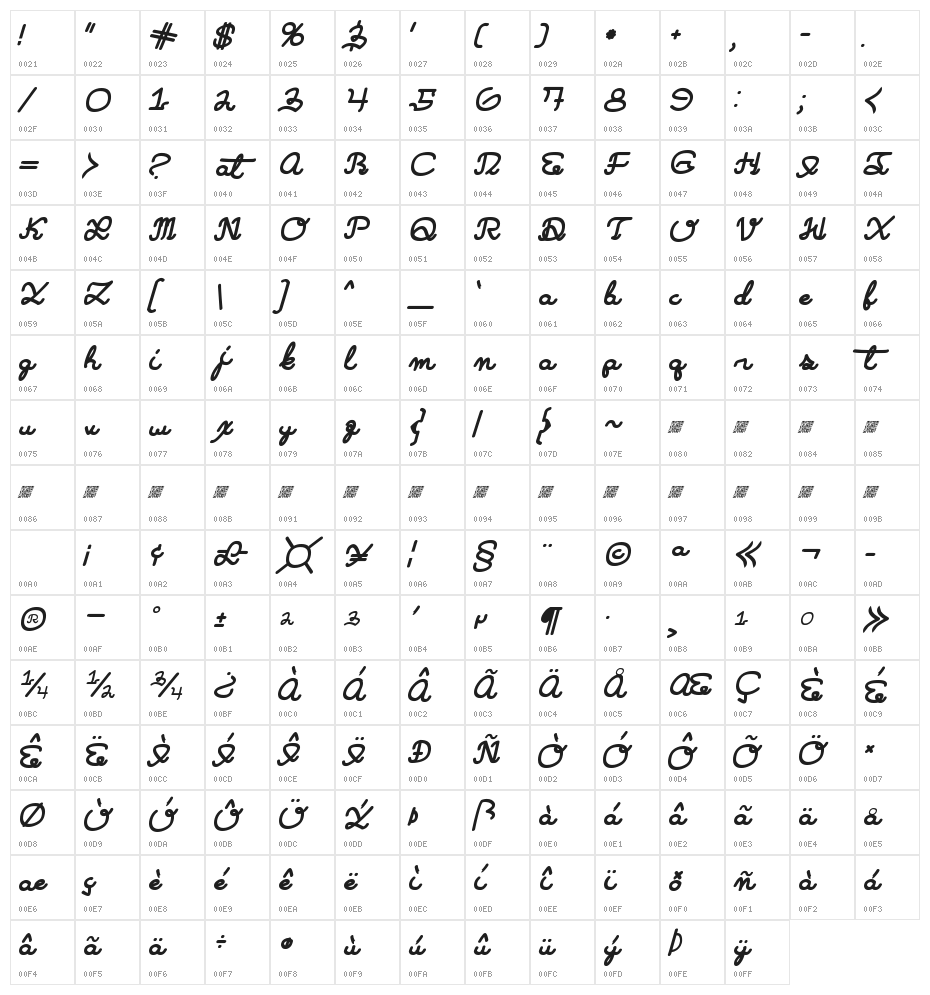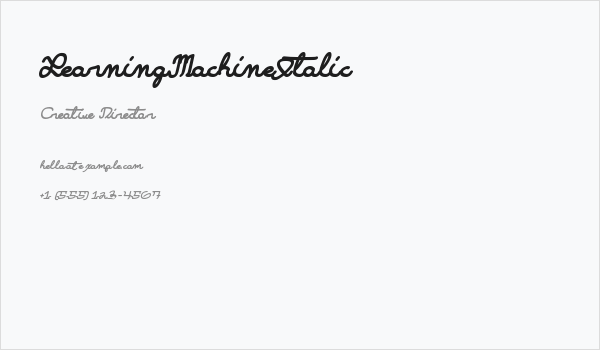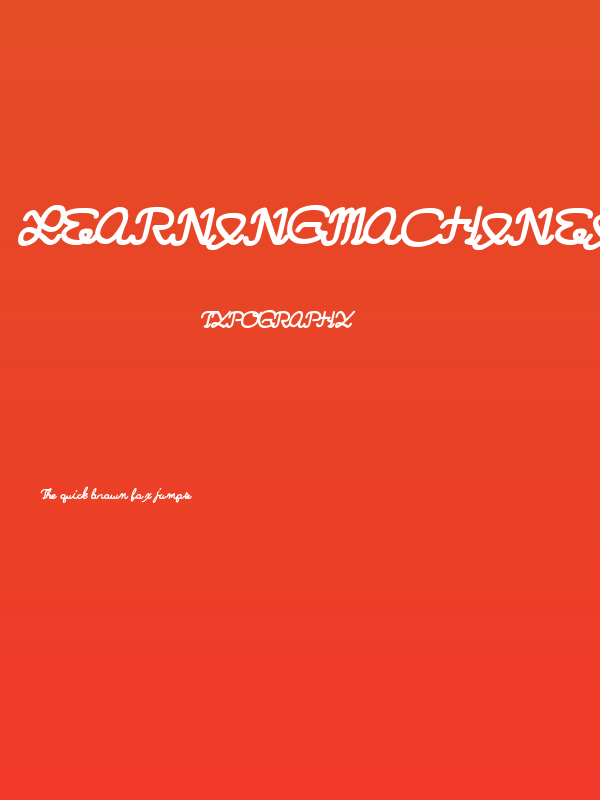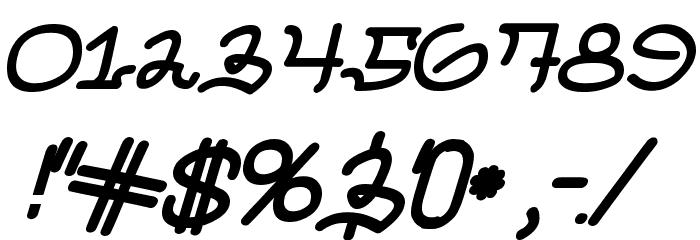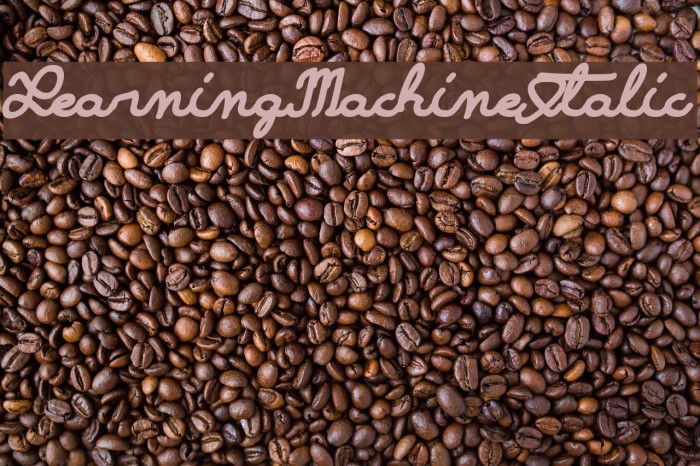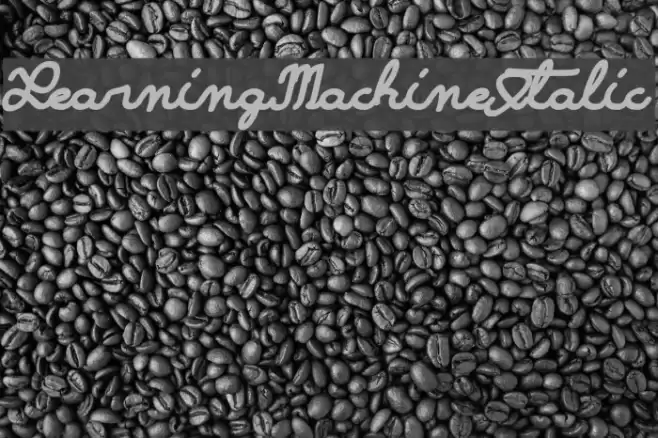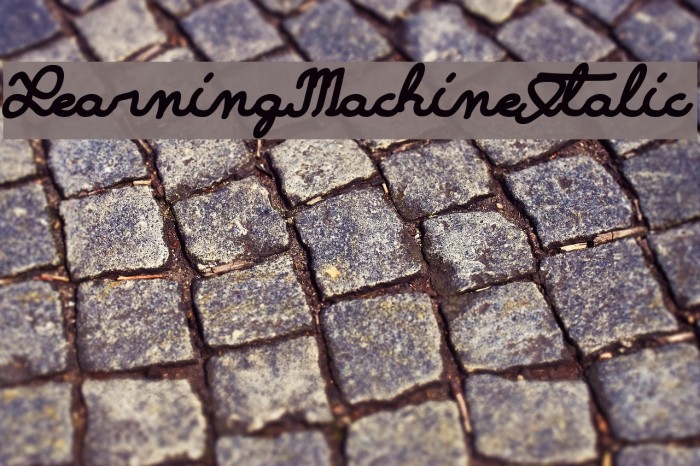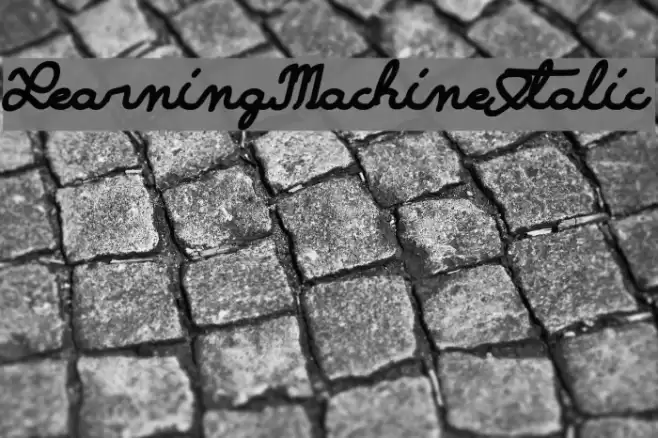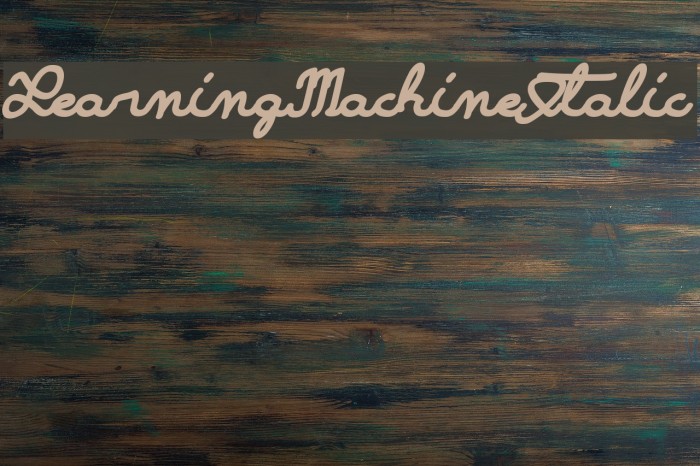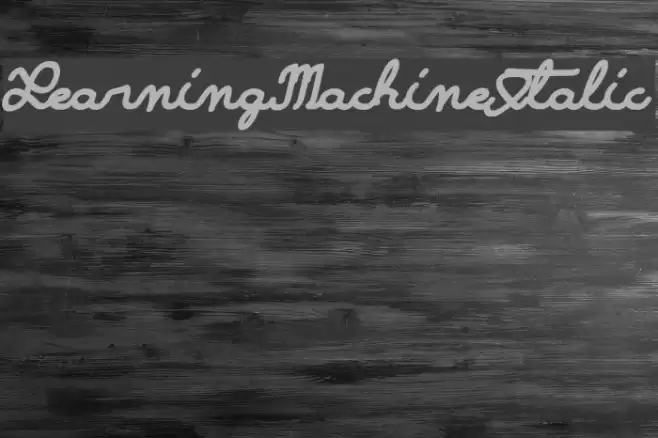
LearningMachineItalic Font
LearningMachineItalic Description
This font features a bold, cursive style with a playful and dynamic flow. The characters are interconnected, giving it a handwritten appearance that is both elegant and informal. The uppercase letters maintain a consistent height, while the lowercase letters exhibit a slight slant, enhancing the italicized effect. The numerals are distinct and maintain the same playful style, ensuring readability. Special characters are creatively integrated, maintaining the overall aesthetic. The font's boldness and fluidity make it suitable for projects that require a personal touch.
| Use Case | Logos, Headlines, Invitations |
| Proposed Projects | Ideal for greeting cards, invitations, personal branding, and creative projects that require a personal touch. |